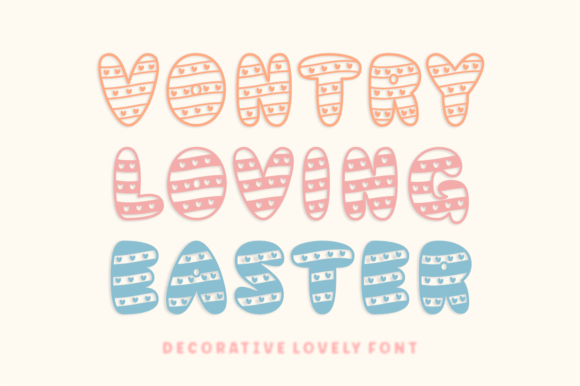
Step into the Realm of Creative Design: Vontry, The Alluring Decorative Font for Your Artistic Endeavors
In a world of endless fonts, Vontry stands as a masterpiece, crafted to ignite your creativity and captivate your audience. This elegant font, adorned with intricate details and graceful curves, is your key to unlocking a world of mesmerizing designs.
With Vontry, you'll craft invitations that extend an allure impossible to resist, leaving a lasting impression on your guests. Your social media posts will blossom with a charm that captivates, attracting followers with its unique aesthetic. Unleash the artist within and watch as Vontry transforms your designs into works of enchantment.
But that's not all; Vontry's versatility extends beyond invitations and social media posts. Let it grace your art prints, adding a touch of elegance that commands attention. Design stunning logos that exude confidence and leave an unforgettable mark. Your T-shirts, mugs, and other products will come alive with Vontry's captivating aura.
With Vontry as your design companion, you'll experience a creative awakening, exploring new horizons and possibilities. This font is not just a collection of characters; it's an evocation of elegance and sophistication, designed to elevate your creations to unprecedented realms.
Don't let your designs fade into the background; let Vontry ignite your imagination and set your creations ablaze with brilliance. Embrace this font's magic and watch as your designs achieve new levels of admiration.